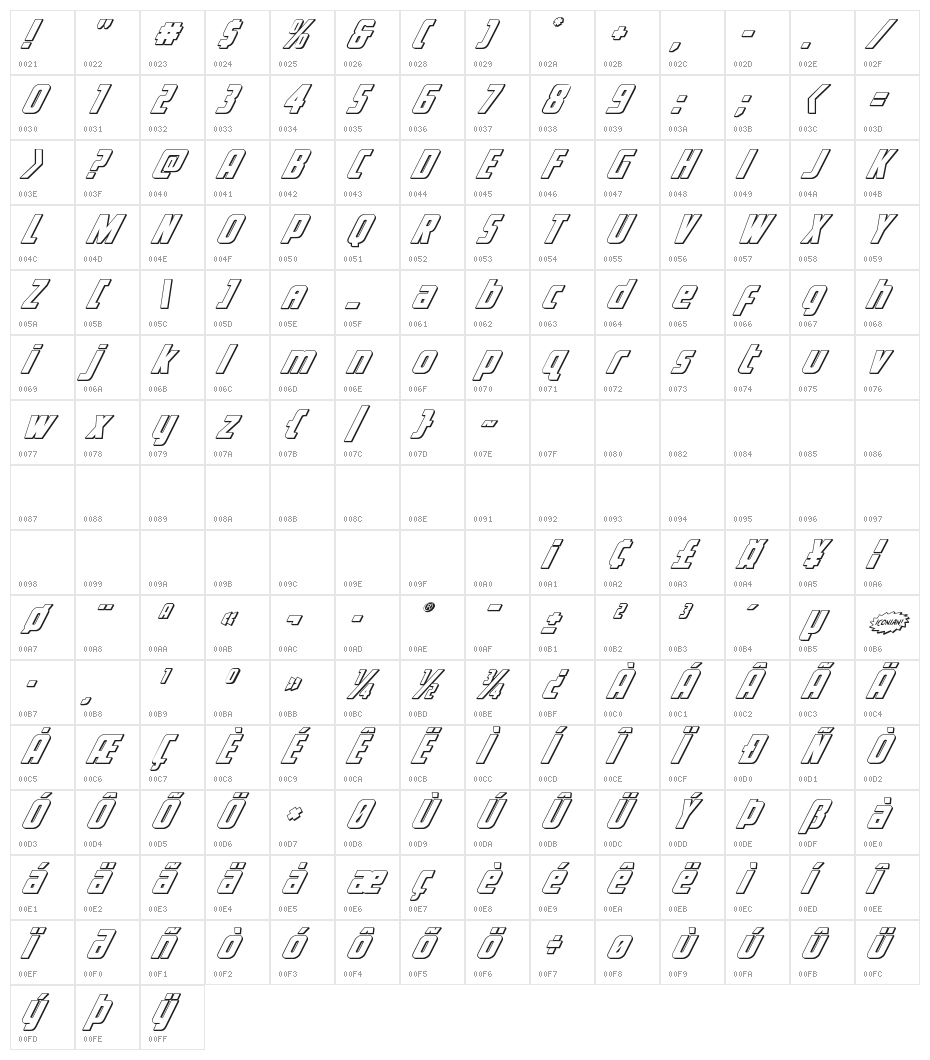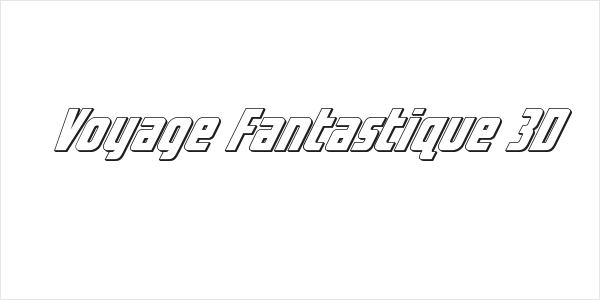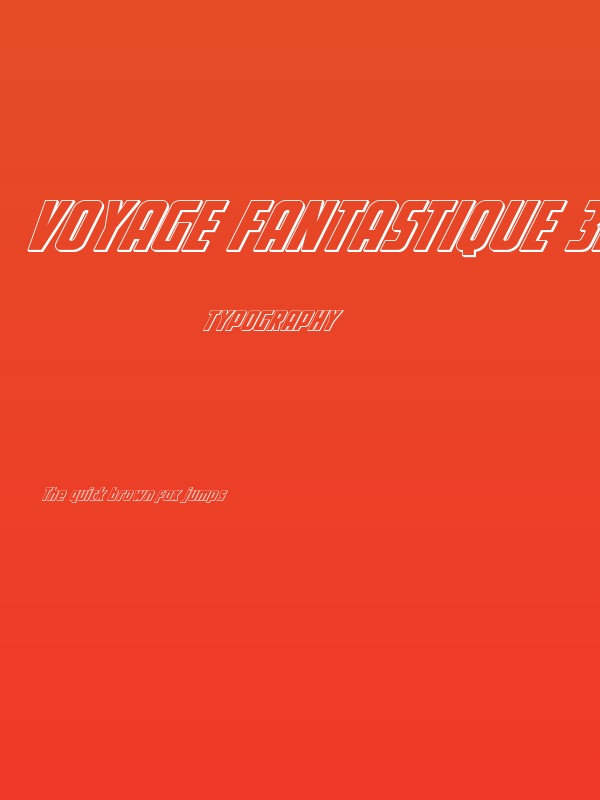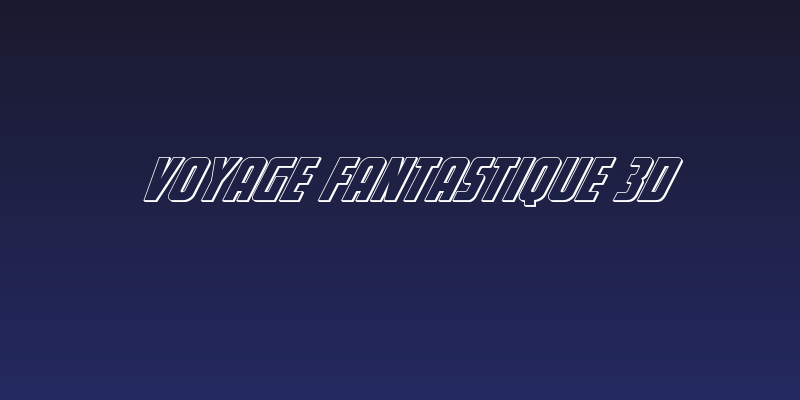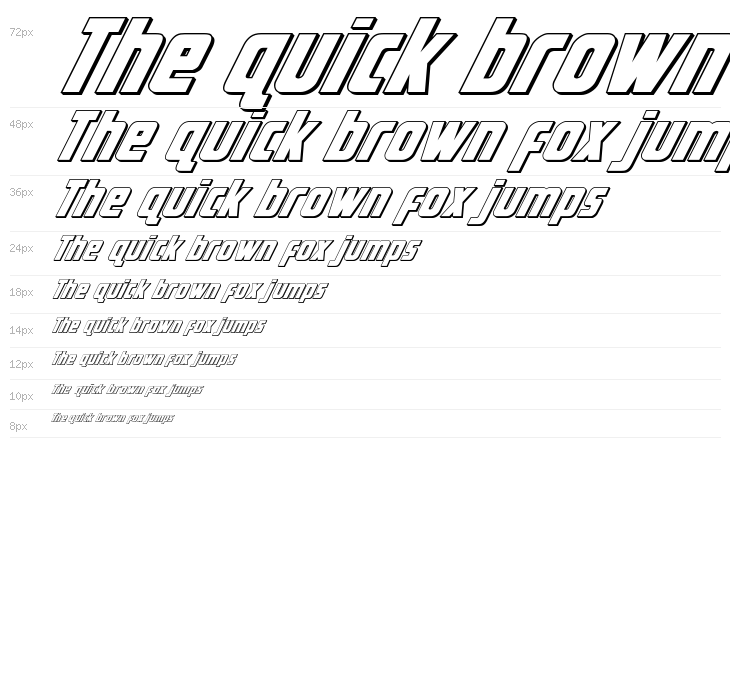
Voyage Fantastique 3D Font
Voyage Fantastique 3D Description
This font features a bold, three-dimensional style with a strong, angular design. The characters are outlined, giving a shadowed effect that enhances the 3D appearance. The uppercase and lowercase letters maintain a consistent width, contributing to a cohesive look. The numerals and special characters follow the same design principles, ensuring uniformity across all glyphs. The font's dynamic and futuristic aesthetic makes it stand out, ideal for projects that require a modern and impactful visual presence.